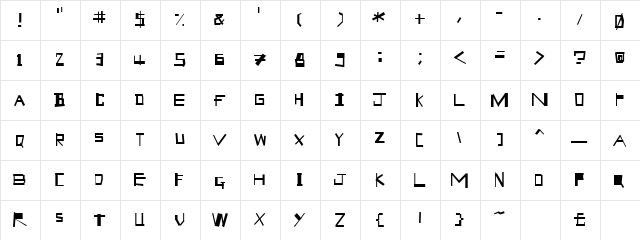
Geek Speek Regular
Design Context for Geek Speek Typeface
Geek Speek is a composed and adaptable typeface that performs quietly and consistently across a wide range of design contexts.